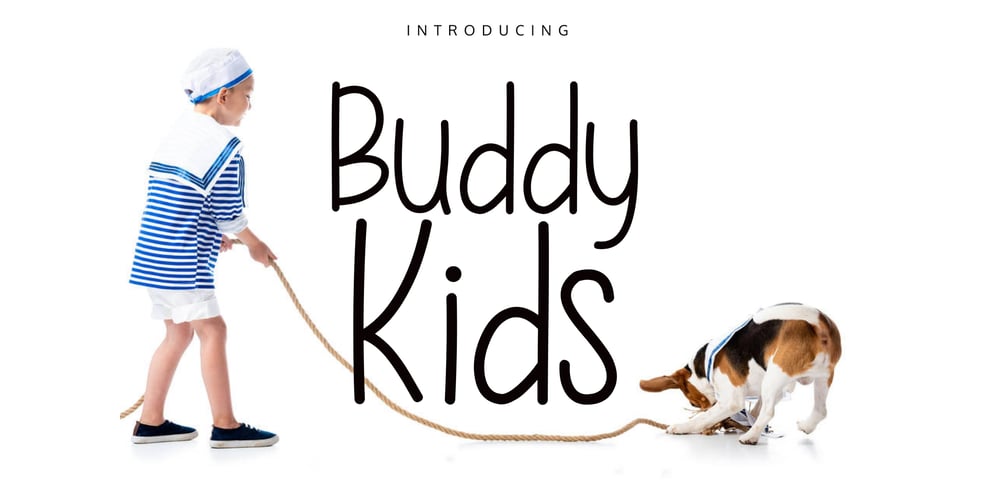
Buddy Kids
Buddy Kids font
Buddy Kids Font Family was designed by Rattana Rattanawan and published by Fox7. Buddy Kids contains 1 styles and family package options. Buddy Kids is a fun-lettered handwritten font that is easy to read. You can use it for various projects, such as blog posts, logos, branding, ads, invitations, greeting cards, planners, photo albums, decorations, and much more. Add it to any of your designs, and enjoy the results!